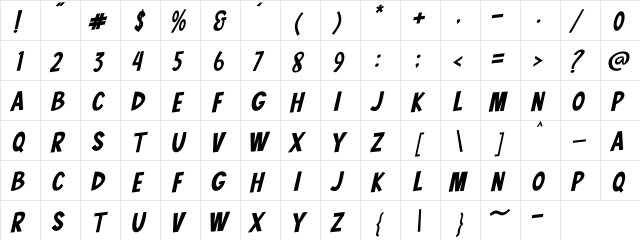
Comic Shark Regular
| Designer | Joe Letter |
Design Context for Comic Shark Typeface
Comic Shark has an approachable, lighthearted character — its loose, expressive forms are well-suited to children's content, casual branding, and fun-first design.
Font Pairing: Pairs well with a rounded or humanist sans for body copy, maintaining the friendly tone without relying on Comic Shark to carry extended reading.
Pro Tip: Use Comic Shark at larger display sizes where its expressive character can land. Pair with a clean, simple sans for body copy to maintain readability.